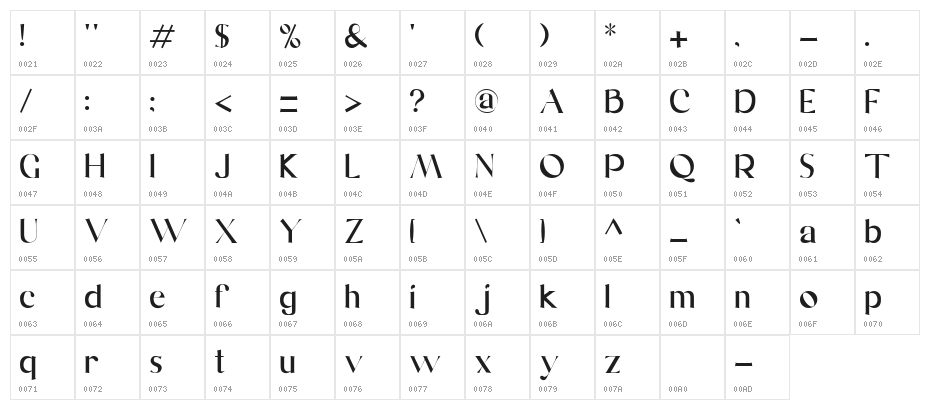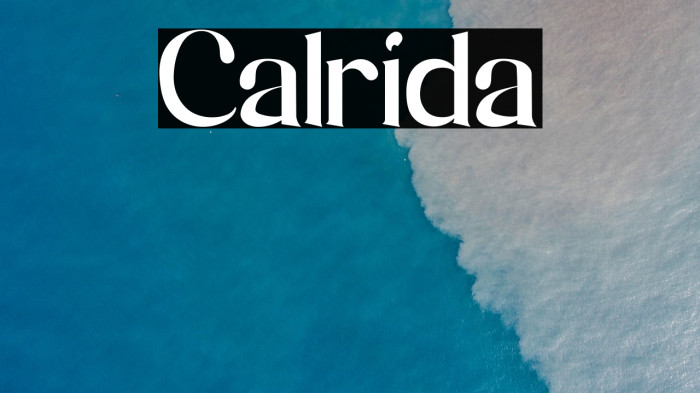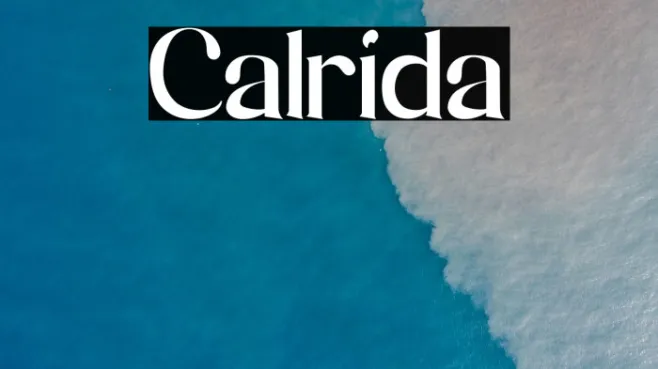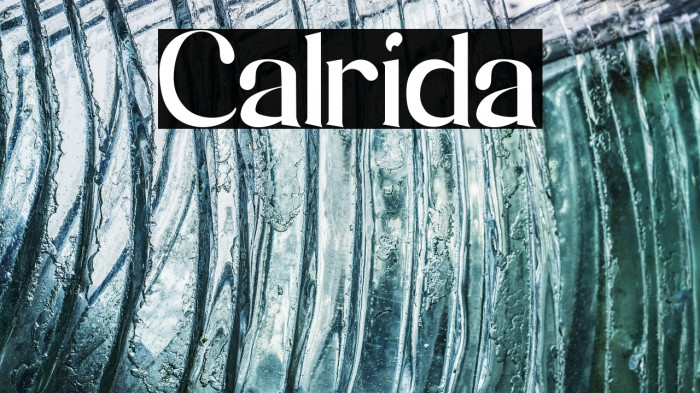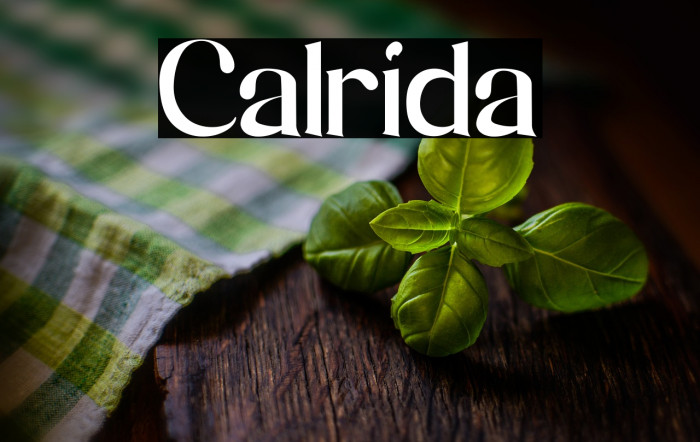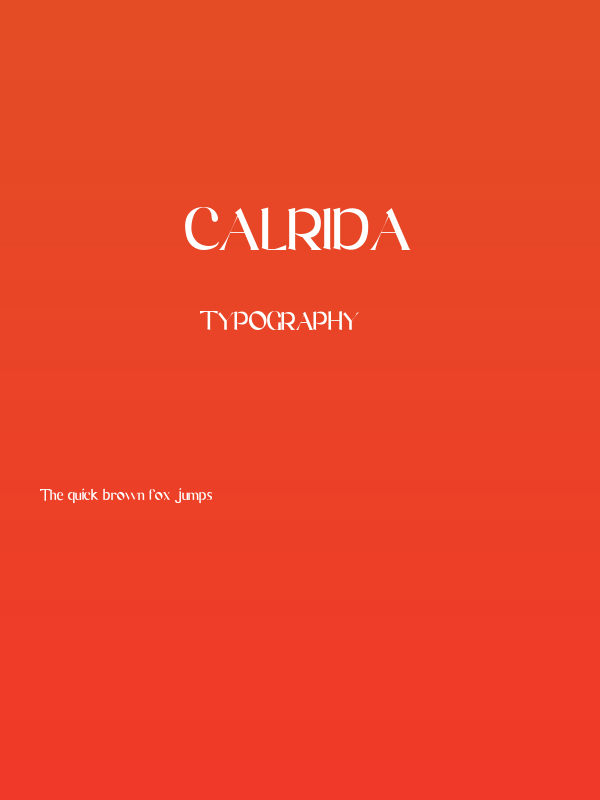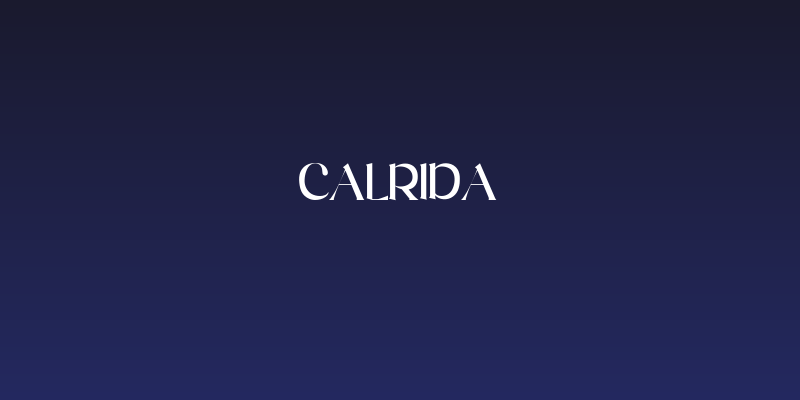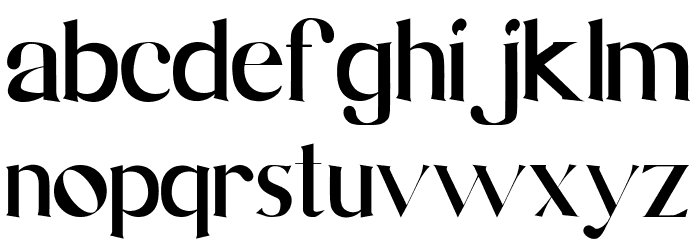
Calrida Font
Calrida Description
This font exhibits a unique blend of modern and classic elements, characterized by its high contrast in stroke thickness and distinct geometric shapes. The uppercase letters feature sharp, angular serifs and a bold presence, while the lowercase letters maintain a more rounded and softer appearance. The overall design is both elegant and assertive, making it suitable for a variety of creative applications. The special characters and numerals are crafted with the same attention to detail, ensuring consistency throughout the typeface.